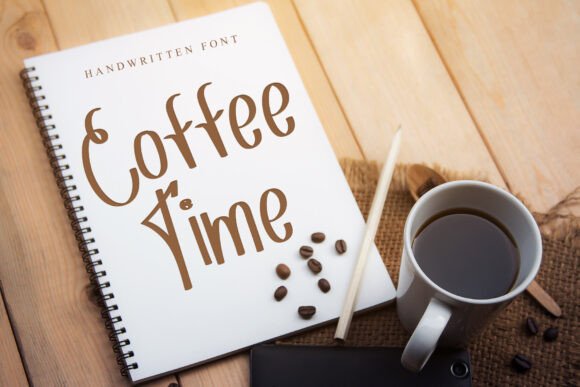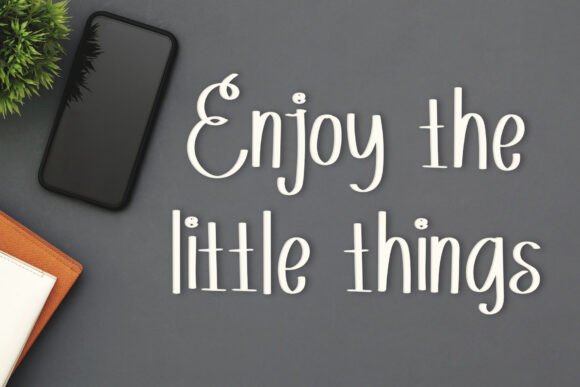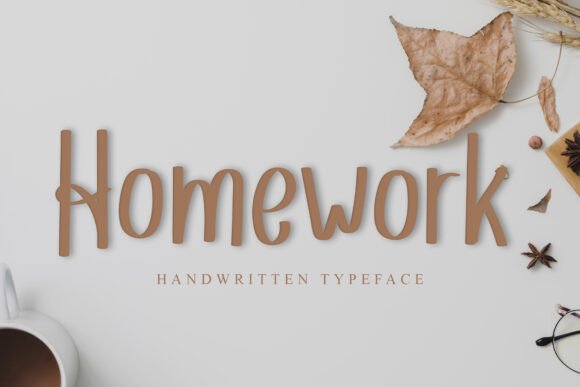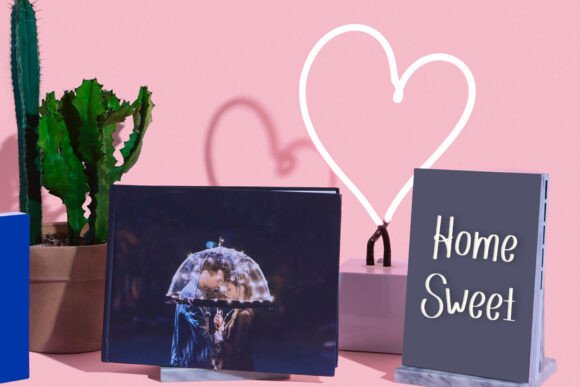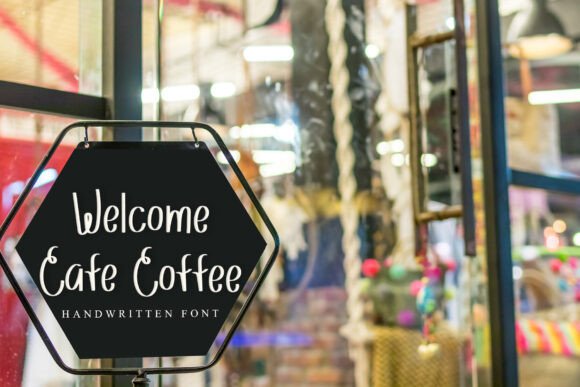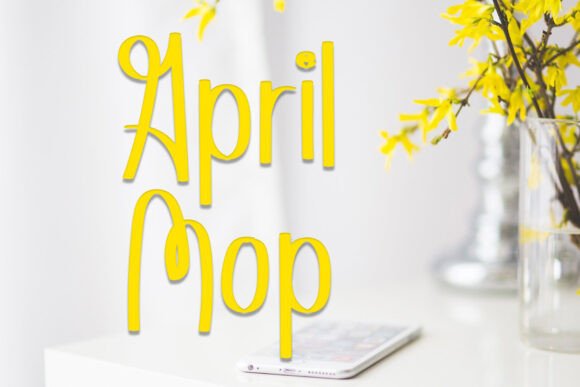
Introducing April Mop Font: Elevate Your Designs with Elegance and Sophistication
In the world of typography, fonts play a crucial role in conveying the tone and personality of a design. For designers and crafters seeking a unique and elegant touch, the April Mop Font is an exceptional choice. This beautiful font is perfect for a variety of applications, including wedding invitations, greeting cards, billboards, logos, business cards, and more.
The Unique Characteristics of April Mop Font
April Mop Font stands out with its varied baseline, which gives it a natural, hand-made appearance. This distinctive feature allows it to bring a touch of elegance and sophistication to any design. The font’s handcrafted look makes it ideal for projects that require a personal and bespoke feel.
One of the key benefits of April Mop Font is its ability to create spectacular creations that look more real. The font’s unique characteristics make it perfect for designers who want to add a touch of whimsy and romance to their work. Whether you’re creating wedding invitations, greeting cards, or business cards, April Mop Font is sure to impress.
April Mop Font is PUA (Private Use Area) encoded, which means that accessing all glyphs and swashes is easy and convenient. This feature allows designers to explore the full potential of the font, making it simple to incorporate into their designs. With PUA encoding, you can access a wide range of characters, including alternates, ligatures, and swashes, giving you complete creative control.
April Mop Font is versatile and can be used in a variety of design applications. Here are some of the ways you can use this beautiful font:
- Wedding Invitations: Add a touch of elegance and sophistication to your wedding invitations with April Mop Font. The font’s handcrafted look makes it perfect for creating bespoke and romantic wedding stationery.
- Greeting Cards: Create beautiful and personalized greeting cards for special occasions, such as birthdays, anniversaries, and holidays.
- Billboards: Use April Mop Font to create eye-catching billboards that showcase your brand’s personality and style.
- Logos: Add a touch of elegance and sophistication to your logo with April Mop Font. The font’s unique characteristics make it perfect for creating a memorable and impactful brand identity.
- Business Cards: Create professional and stylish business cards that showcase your brand’s personality and style.
Why Choose April Mop Font?
There are many reasons why designers and crafters should choose April Mop Font for their projects. Here are a few:
- Unique and Elegant: April Mop Font is a unique and elegant font that adds a touch of sophistication to any design.
- Handcrafted Look: The font’s handcrafted look makes it perfect for projects that require a personal and bespoke feel.
- PUA Encoding: The font’s PUA encoding makes it easy to access all glyphs and swashes, giving designers complete creative control.
- Versatile: April Mop Font can be used in a variety of design applications, from wedding invitations to billboards.
In conclusion, April Mop Font is an exceptional choice for designers and crafters seeking a unique and elegant touch for their projects. With its varied baseline, handcrafted look, and PUA encoding, this font is perfect for creating spectacular creations that look more real. Whether you’re creating wedding invitations, greeting cards, billboards, logos, or business cards, April Mop Font is sure to impress. So why not give it a try and elevate your designs with elegance and sophistication?